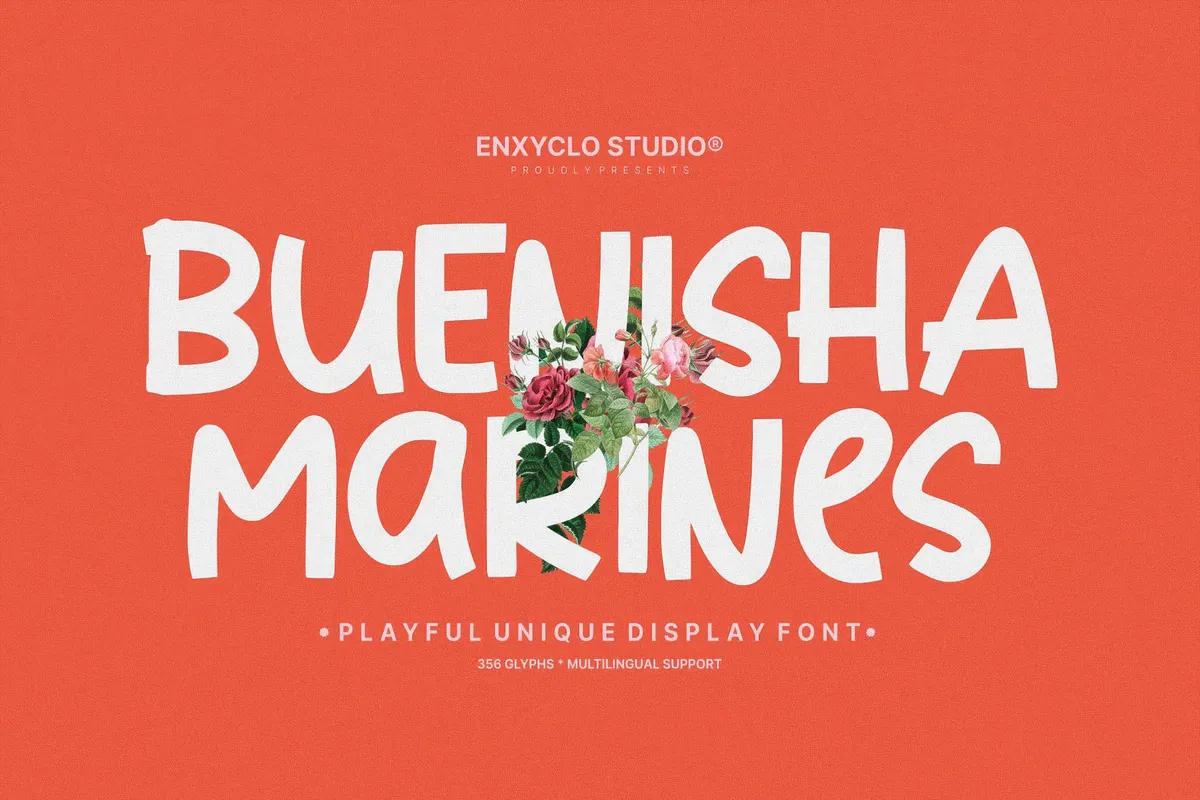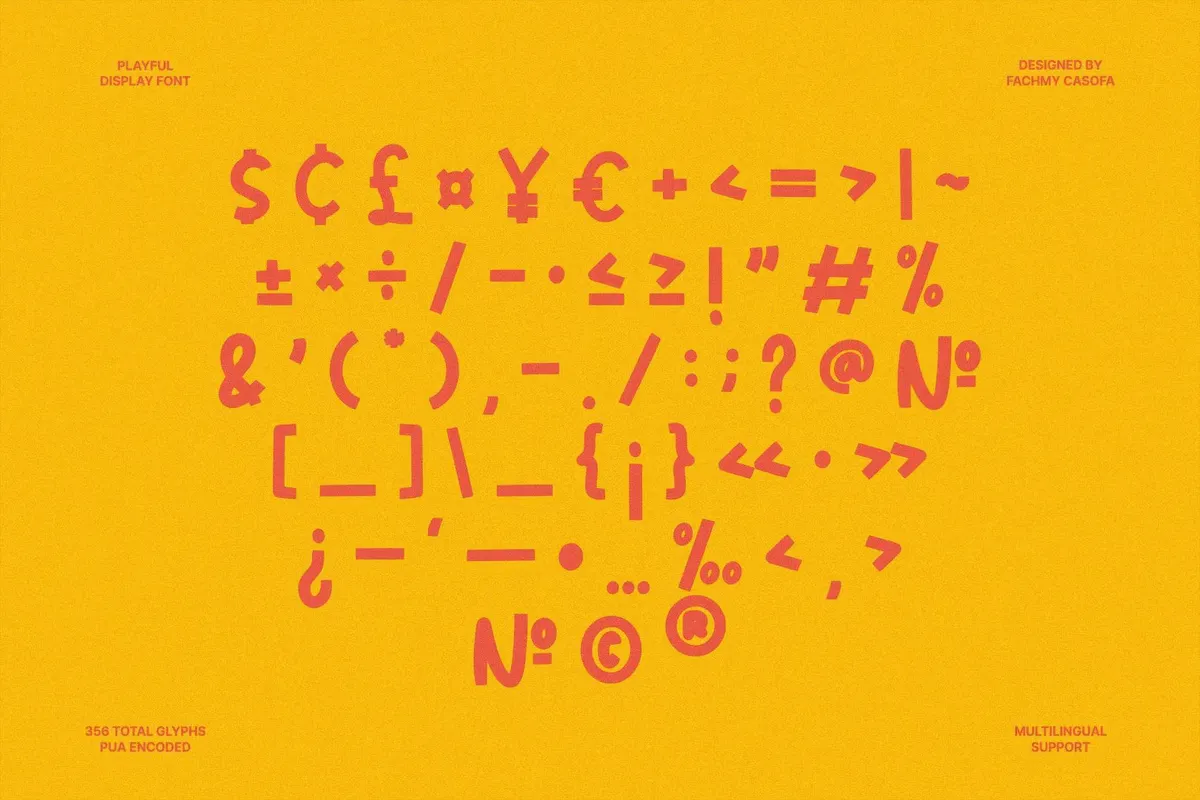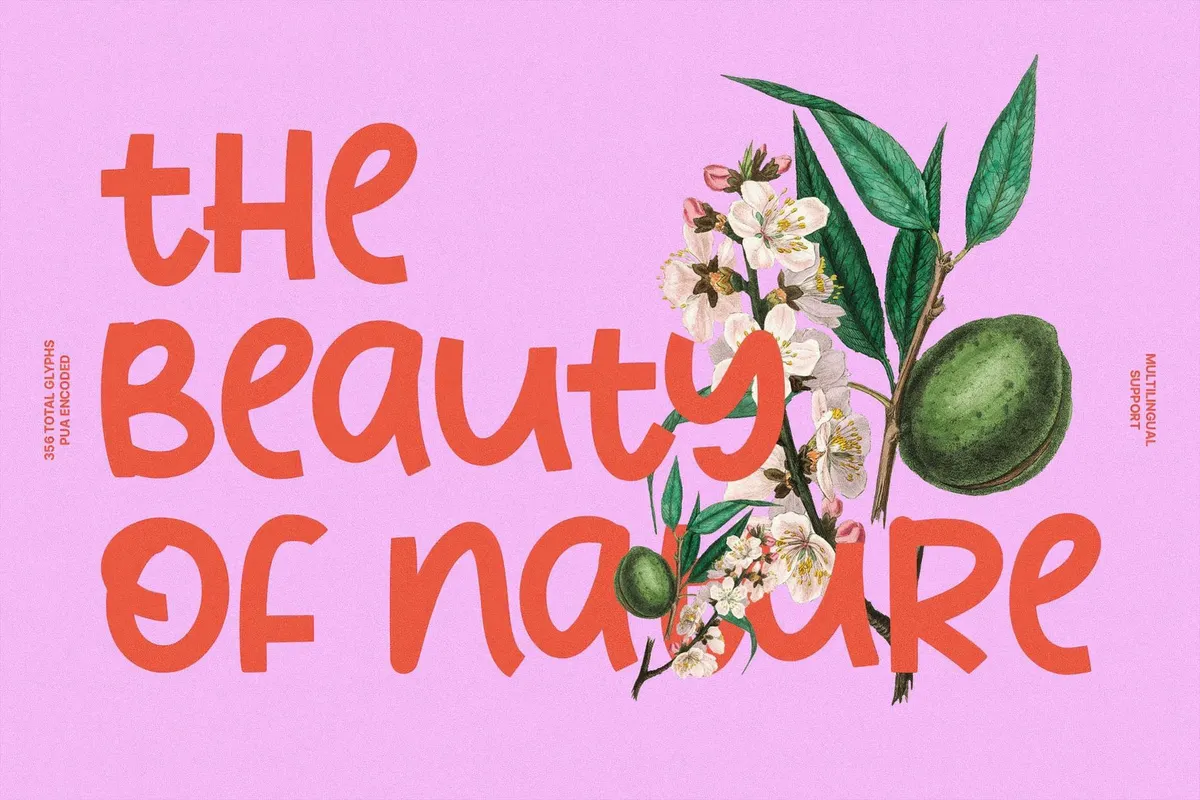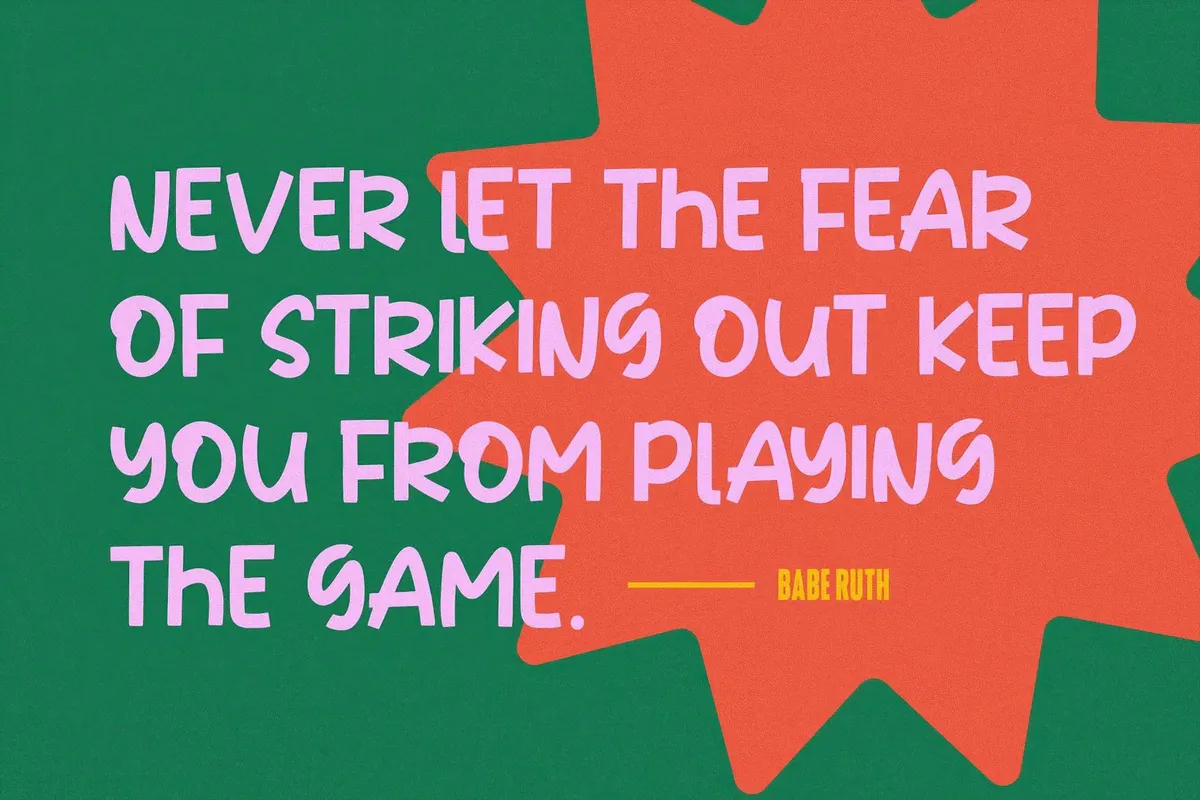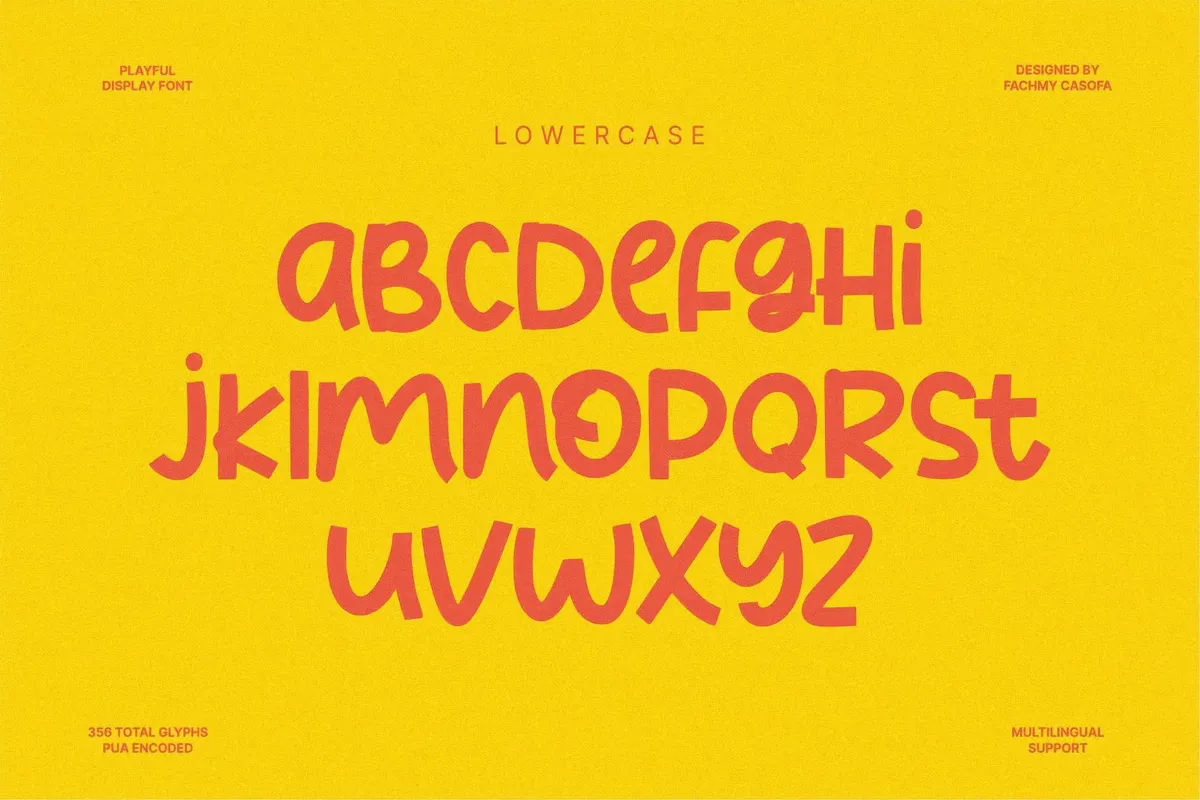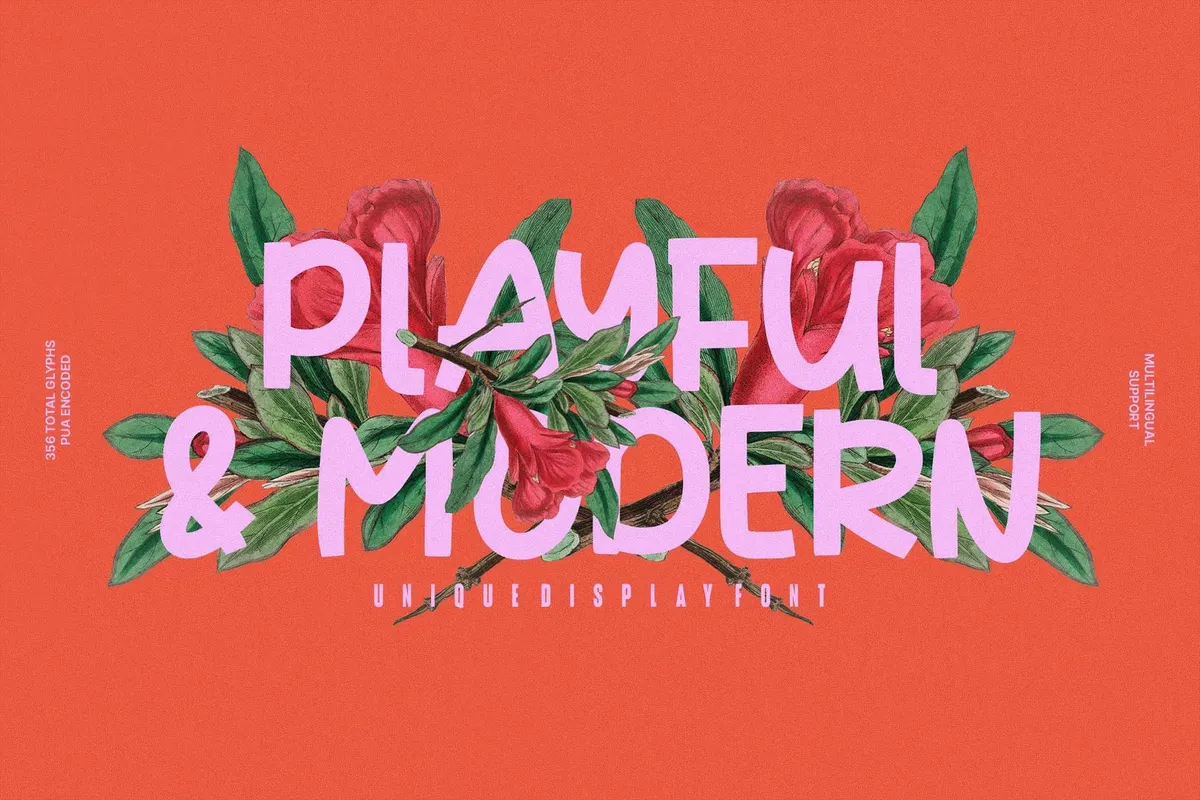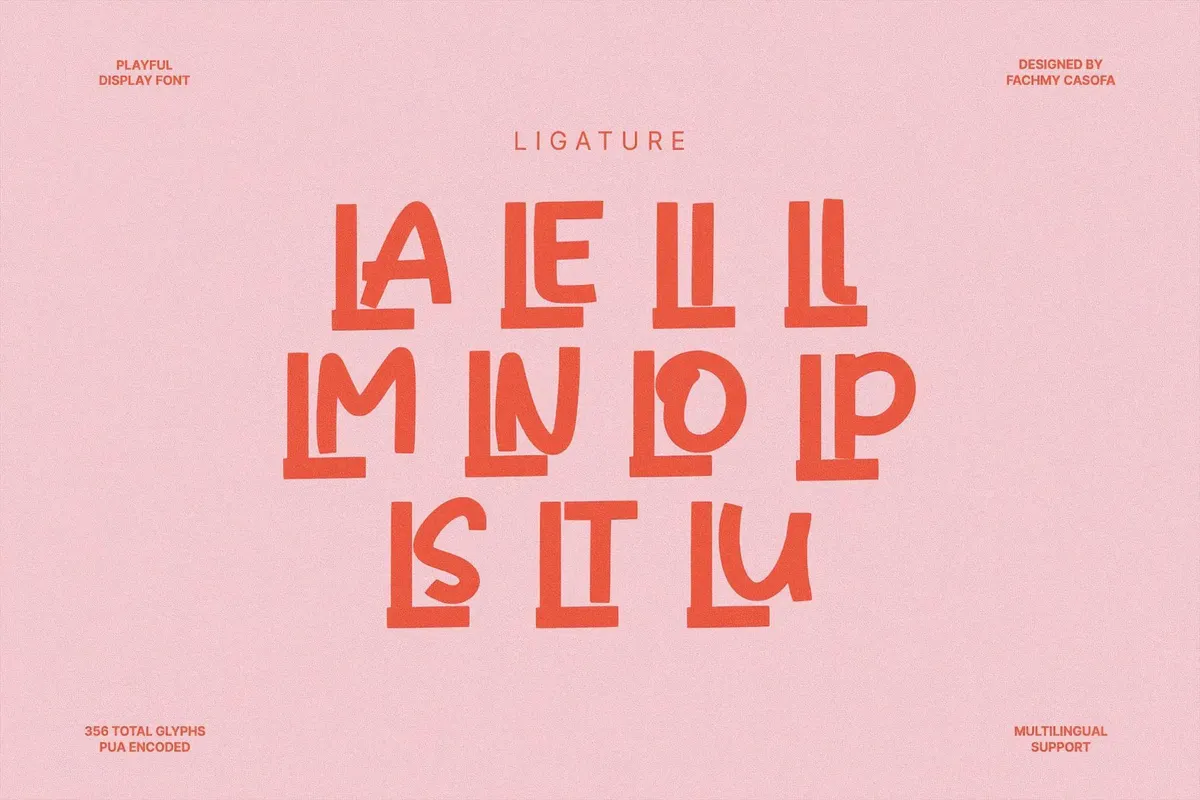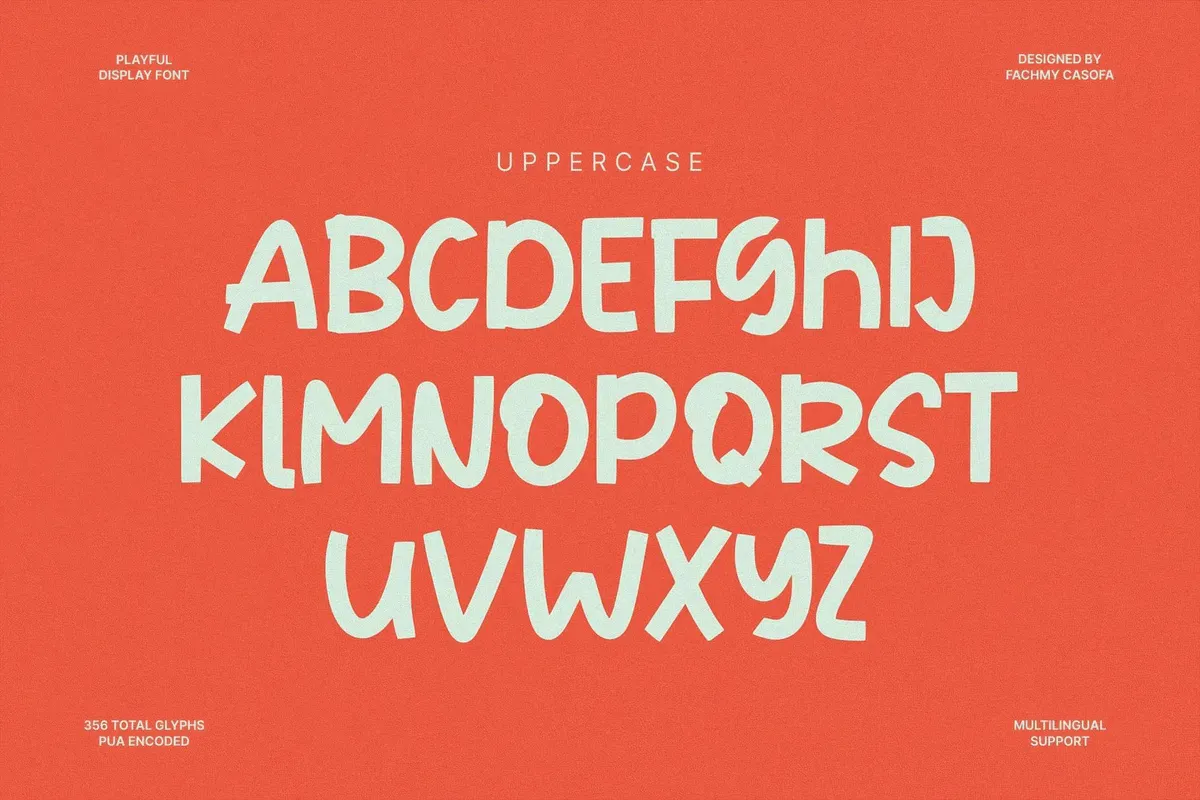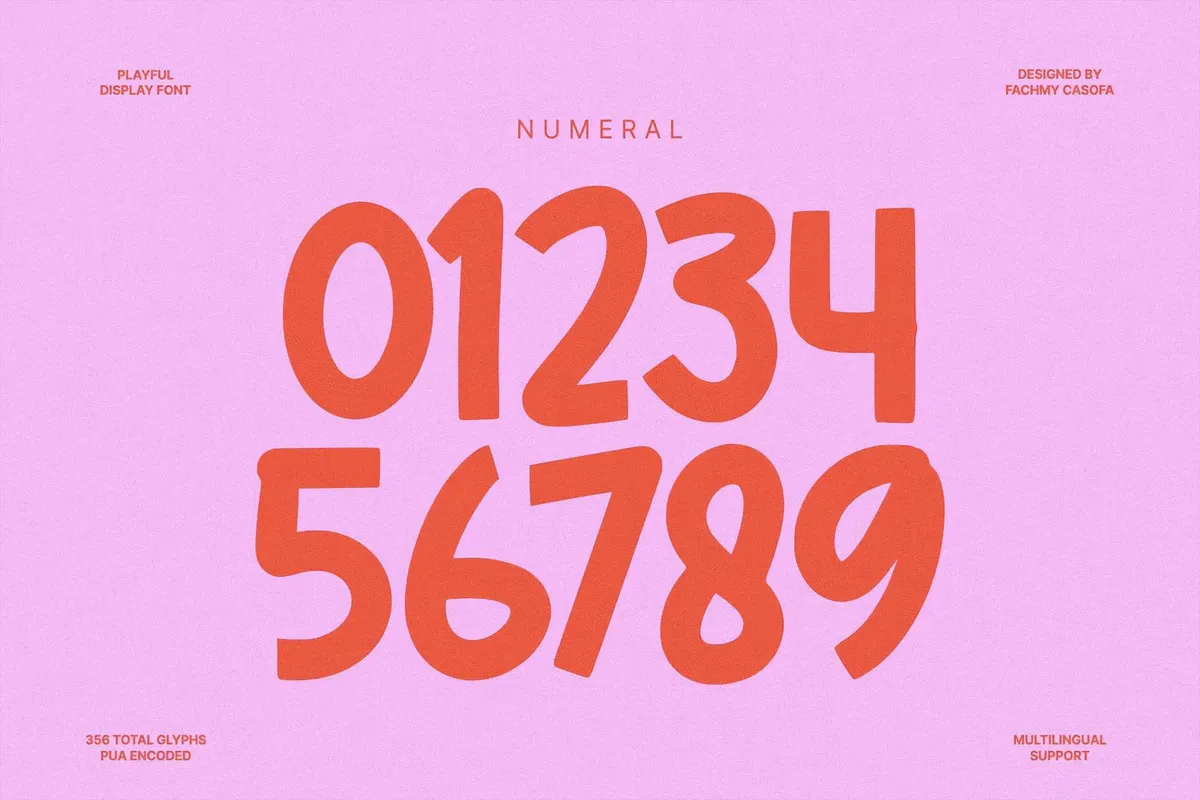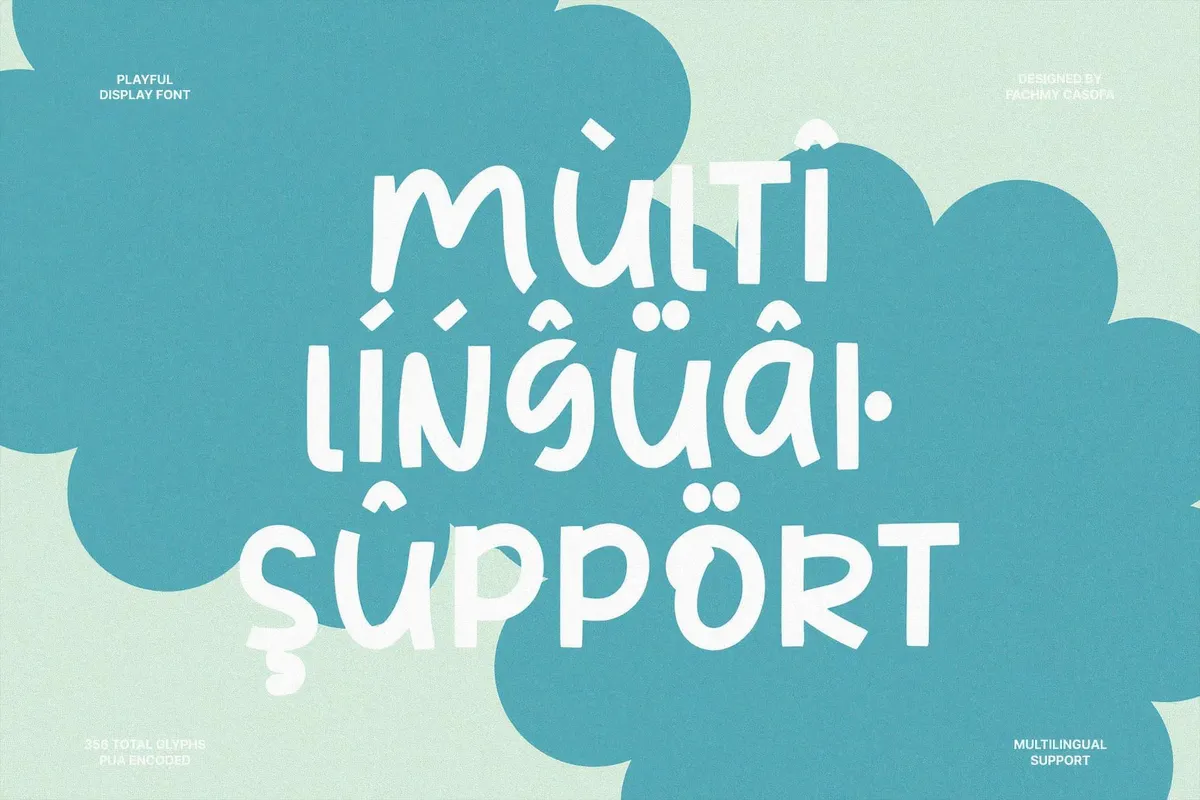
NCL Buenisha Marines — Playful Font
Buenisha Marines is everything a quirky and quick handwriting font can be. It's super legible, and its irregular, slightly wobbly strokes give off a casual, lighthearted tone. A complete character set, ligatures, and multilingual support allow any projects that match the style: blogs and social media posts, small business brandings, spring/summer fashion collections & prints, stationery, posters, and more. You can pair it with most sans serifs, from basic to condensed and monospaced.